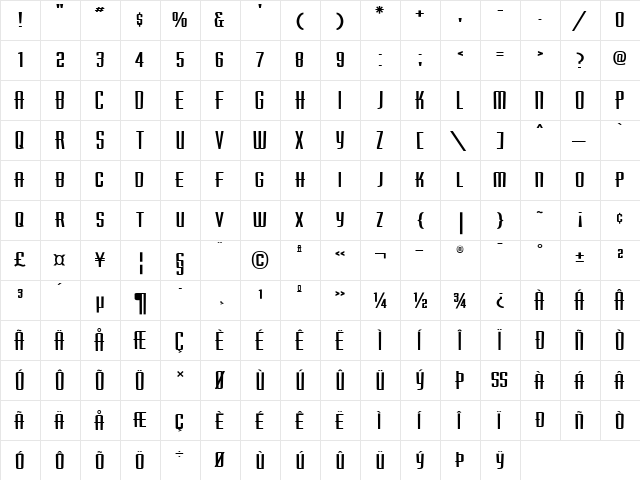
Mingo Regular
| Foundry | Spiece Graphics |
Design Context for Mingo Typeface
Mingo takes a measured approach to typography — its balanced proportions and neutral character make it a reliable workhorse for both digital and print work.